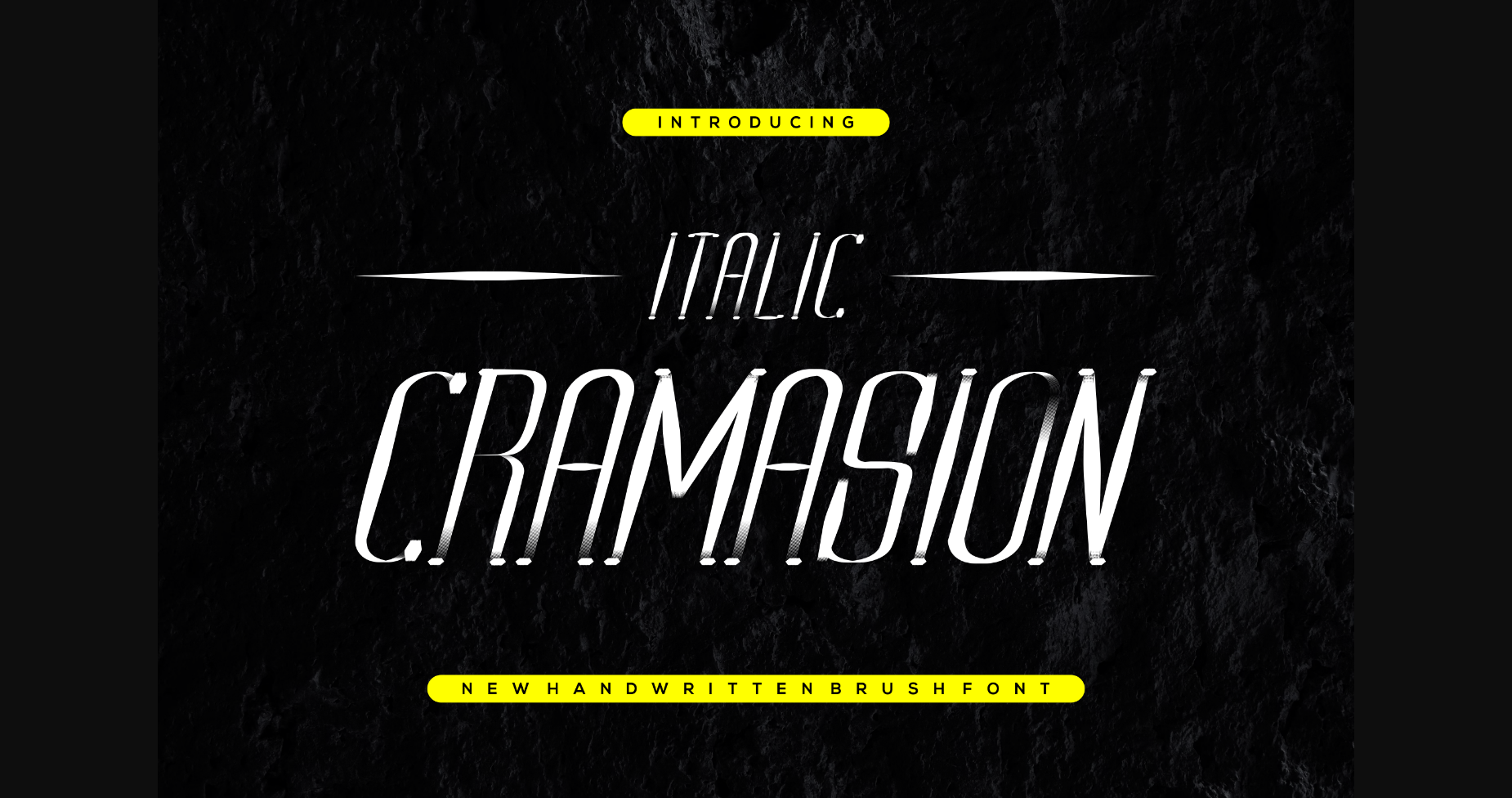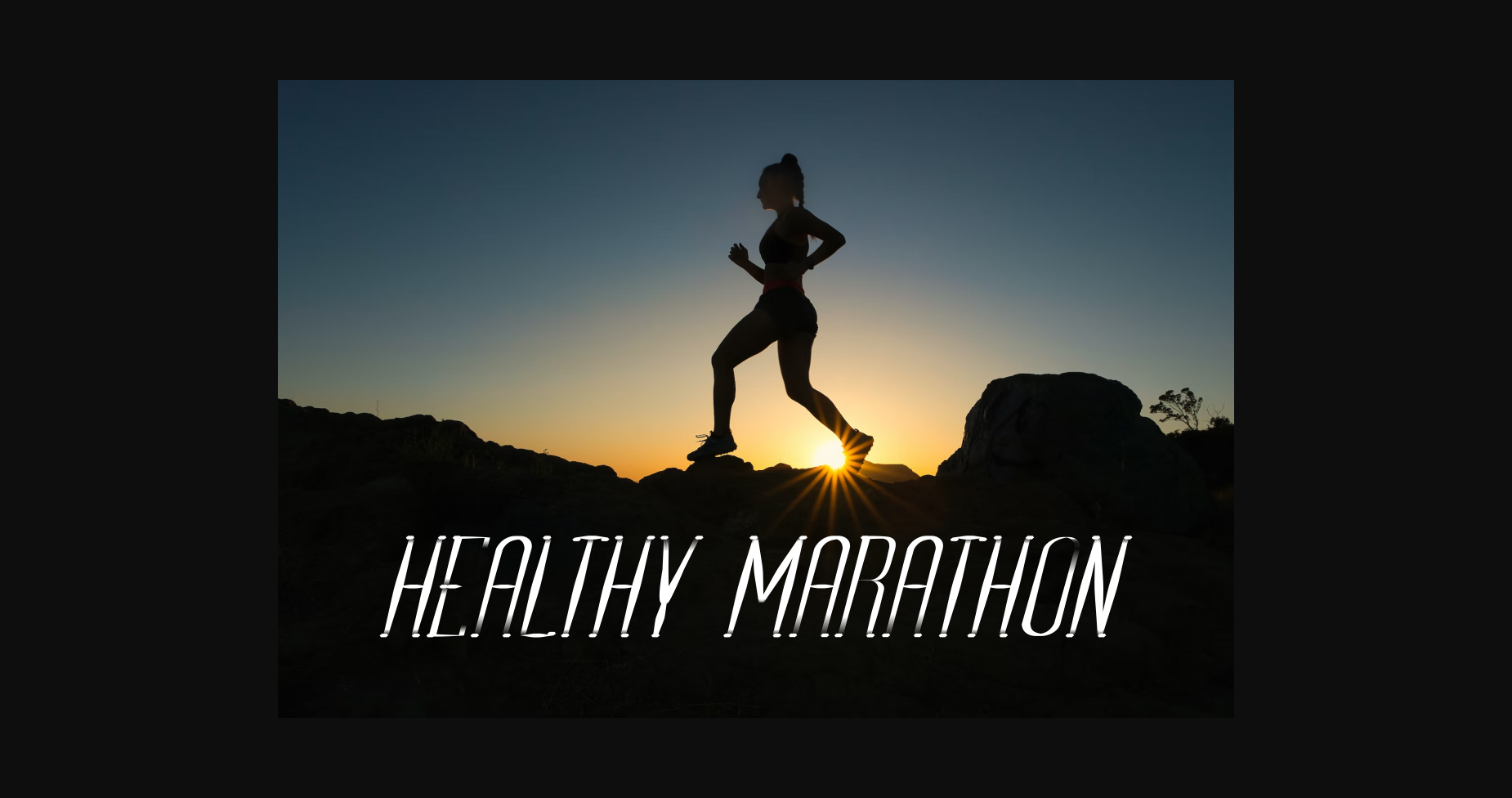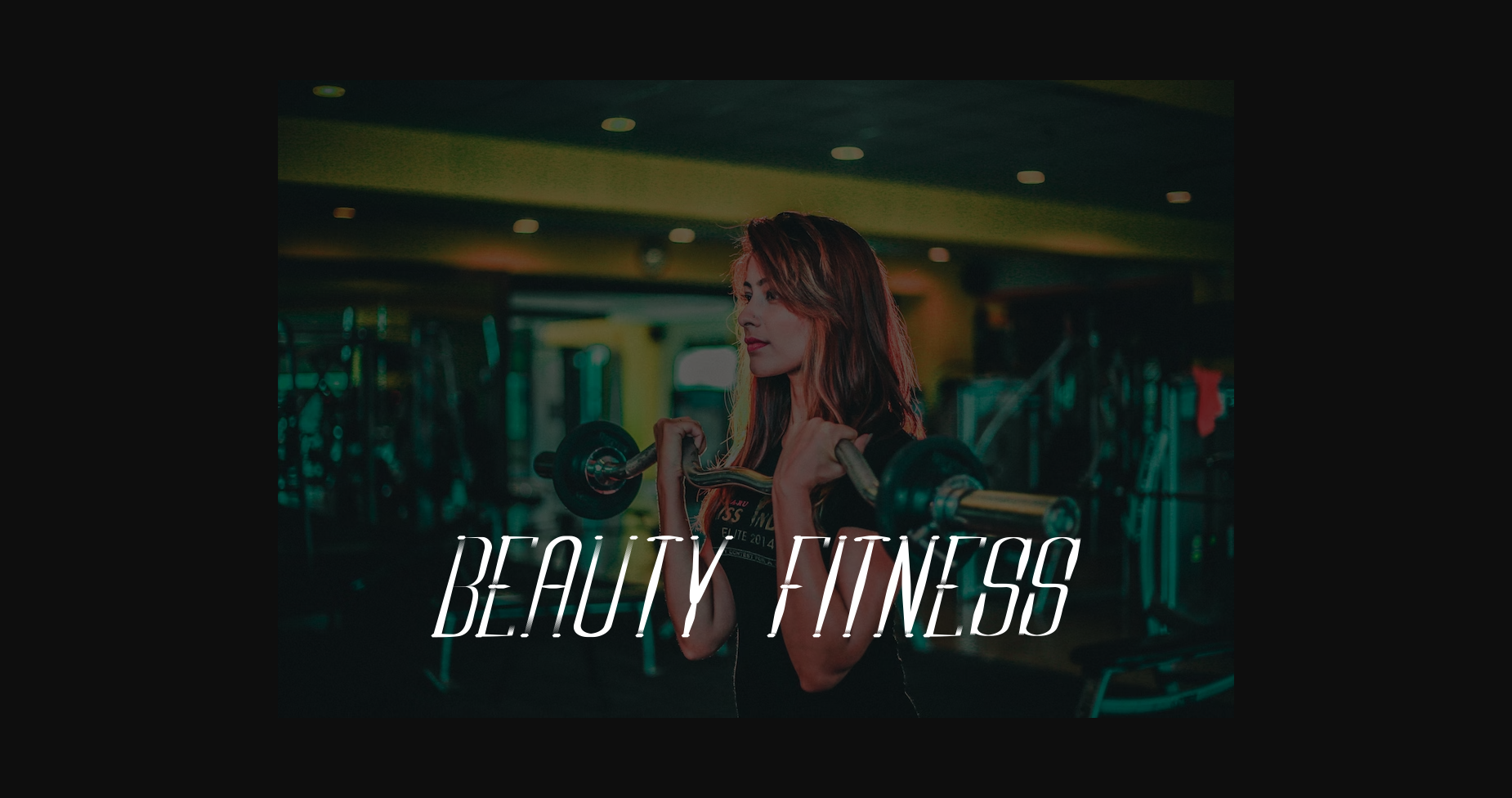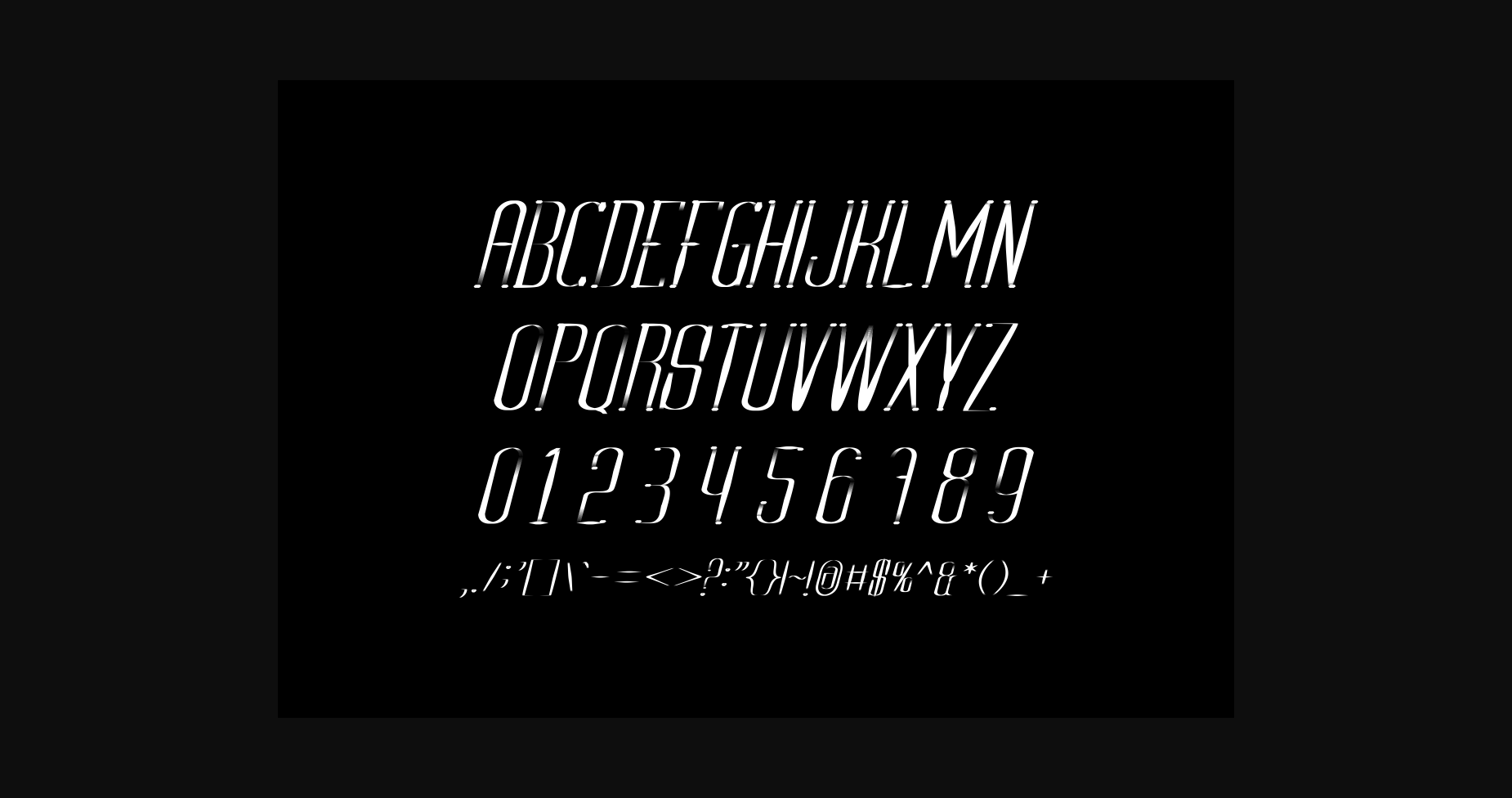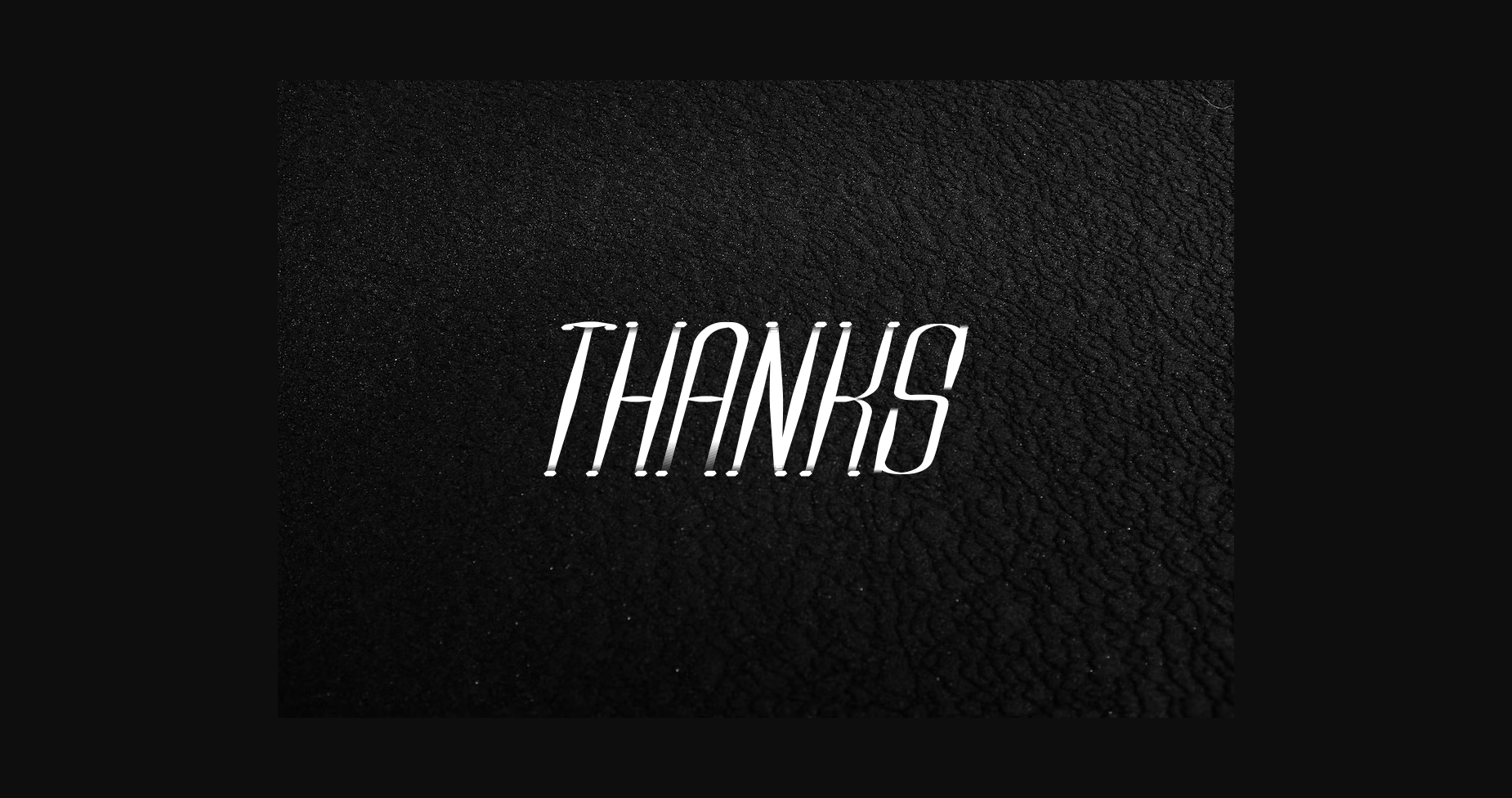
Italic Cramasion Font
About Italic Cramasion Font
Italic Cramasion is a modern and captivating font. Ideal for contemporary projects, digital media, and advertising, its handwritten style creates a warm and inviting look. This font style is perfect for headlines, body copy, and branding and its captivating design makes it stand out from the crowd.